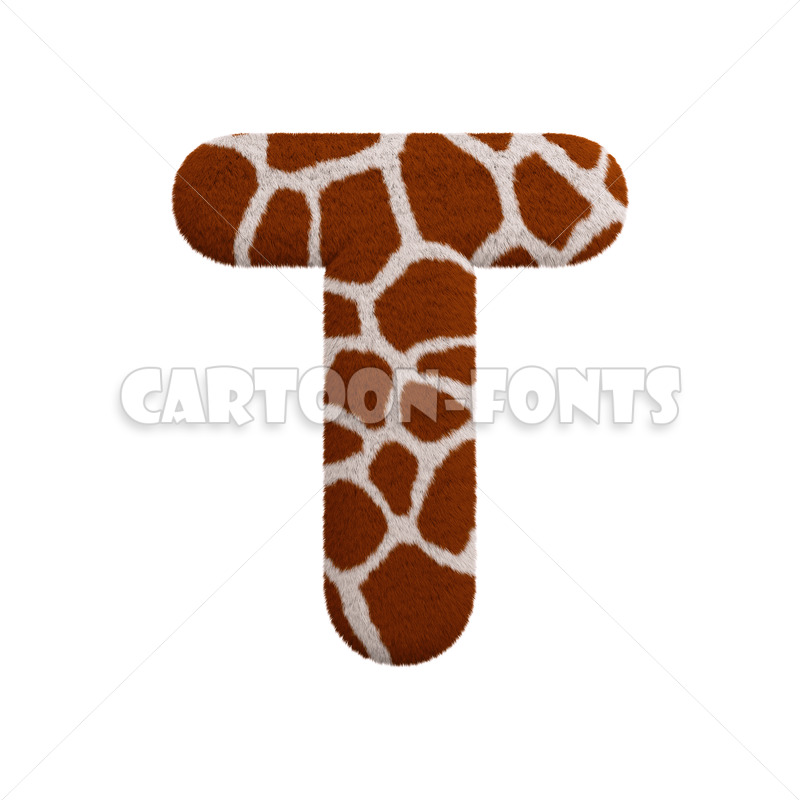
Giraffe font T - large 3d character
Giraffe font T
Giraffe font T illustration against a white background.
This is the perfect image for creative projects linked to Safari, Wildlife or Africa thematics.